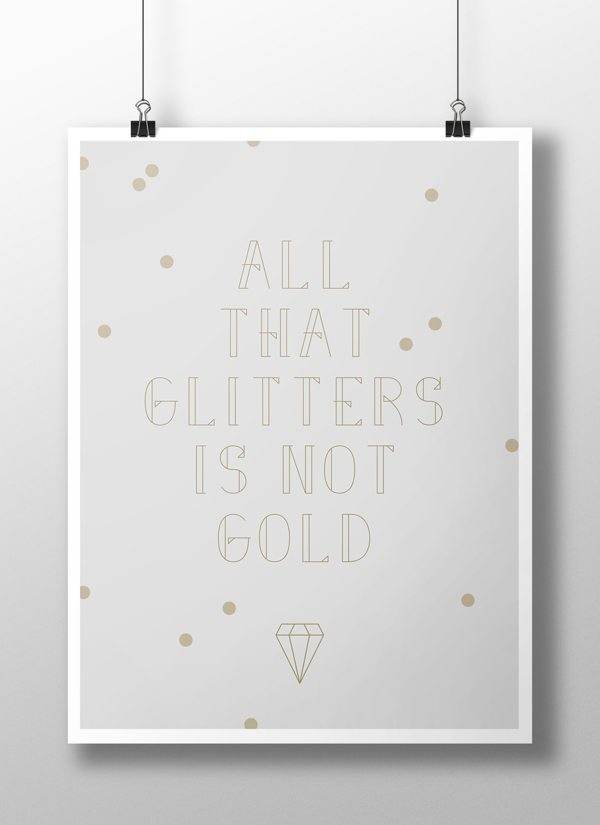
Free Font Of The Day #6 – Fancy Me Font
Fancy Me Font
Font pack by Marie-Michelle Dupuis. A mix between edgy, modern and yet femine. Could look great in editorial designs. This font is free for personal and commercial use.